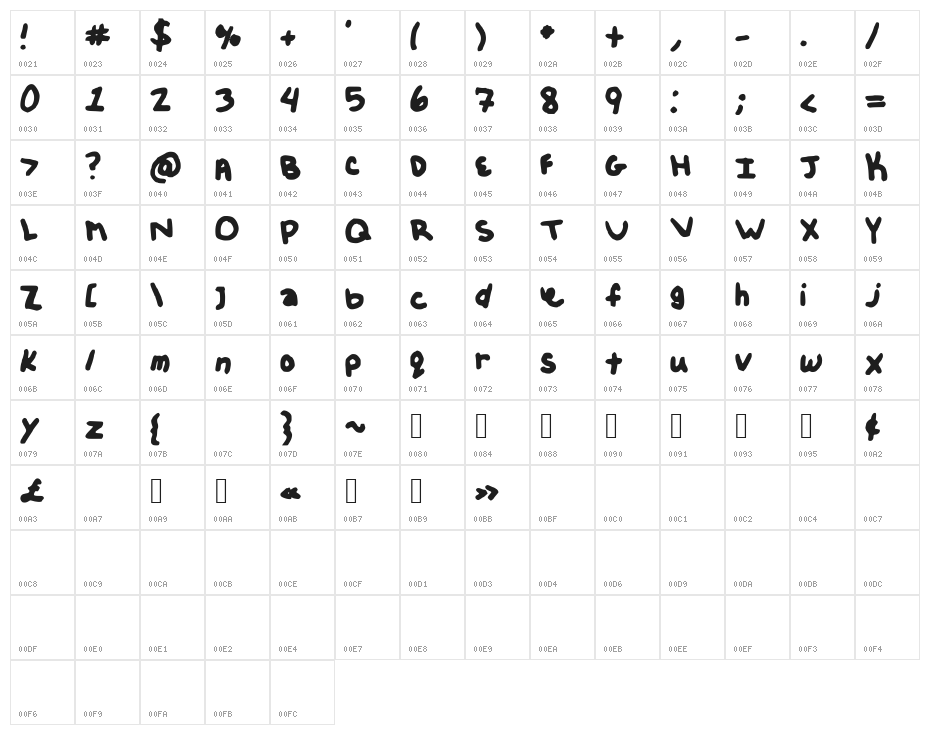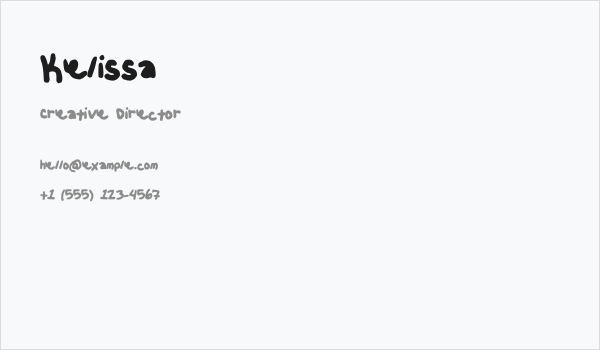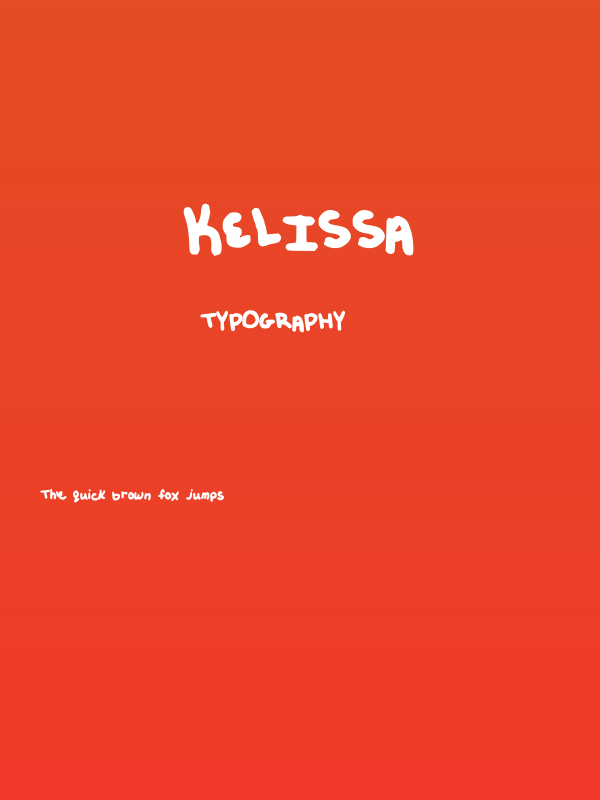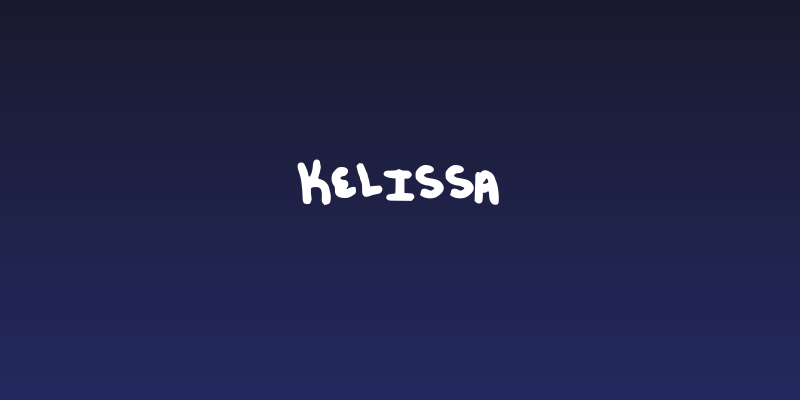
Kelissa Font
Kelissa Description
This font features a bold and playful handwritten style, characterized by its thick strokes and irregular shapes. The letters have a casual, almost childlike appearance, with a slightly uneven baseline that adds to its charm. The uppercase and lowercase letters are distinct yet maintain a cohesive look, while the numbers and special characters are equally bold and expressive. This font's unique style makes it stand out, offering a sense of fun and creativity.
Overall StylePlayful, Casual
Proposed ProjectsIdeal for children's books, playful branding, casual invitations, and creative posters.